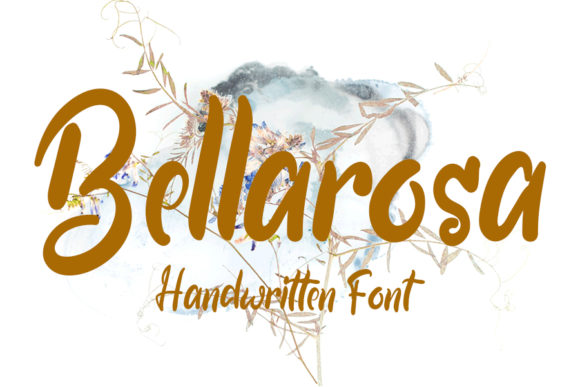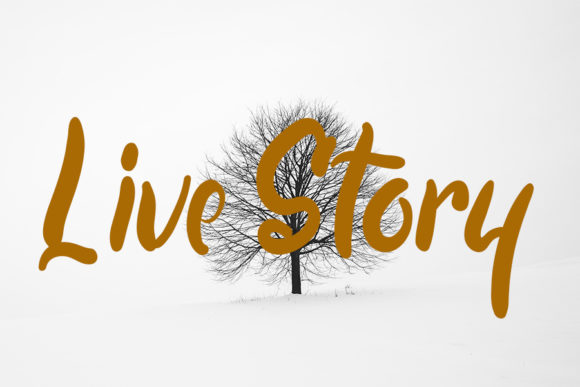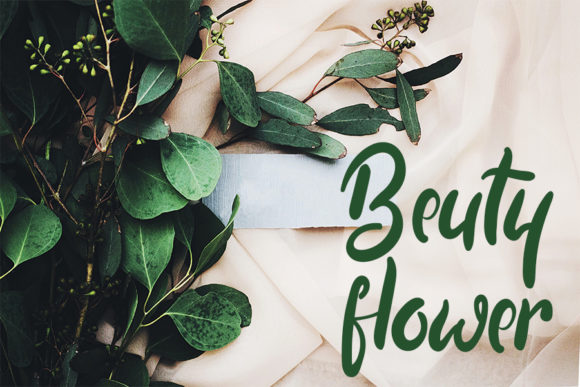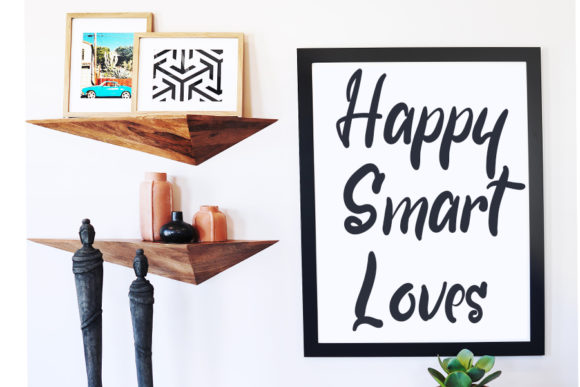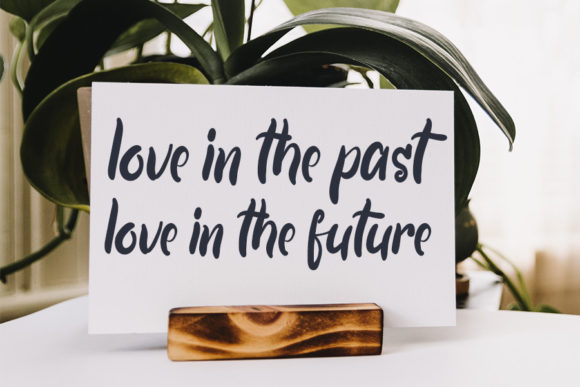
Bellarosa Font
About Bellarosa Font
“Bellarosa” is a font that effortlessly combines flowing elegance with bold and thick lettering, creating a harmonious balance that captures attention and inspires creativity. With its versatile style, this font becomes a canvas for your imagination, allowing you to craft designs that are truly spectacular and captivating.
The beauty of “Bellarosa” lies in its ability to convey both sophistication and strength. The flowing strokes give a sense of grace and refinement, while the thick lettering adds a touch of boldness and impact. This unique fusion of elements makes it a font that resonates with a wide range of design concepts, giving you the freedom to explore various creative avenues.
Fall in love with the versatility of “Bellarosa” as you envision it gracing your projects. Imagine it adorning wedding invitations with a touch of elegance, creating stunning logos that demand attention, or designing posters that convey a powerful message. Every letter becomes a piece of art, contributing to the overall beauty and impact of your design.
Whether you’re aiming for a refined and delicate look or a strong and commanding presence, “Bellarosa” adapts effortlessly to your vision. Let its flowing and thick lettered style become the foundation of your creative endeavors, allowing you to craft designs that truly stand out and leave a lasting impression on anyone who beholds them.